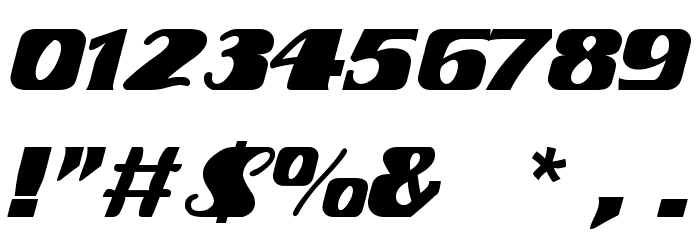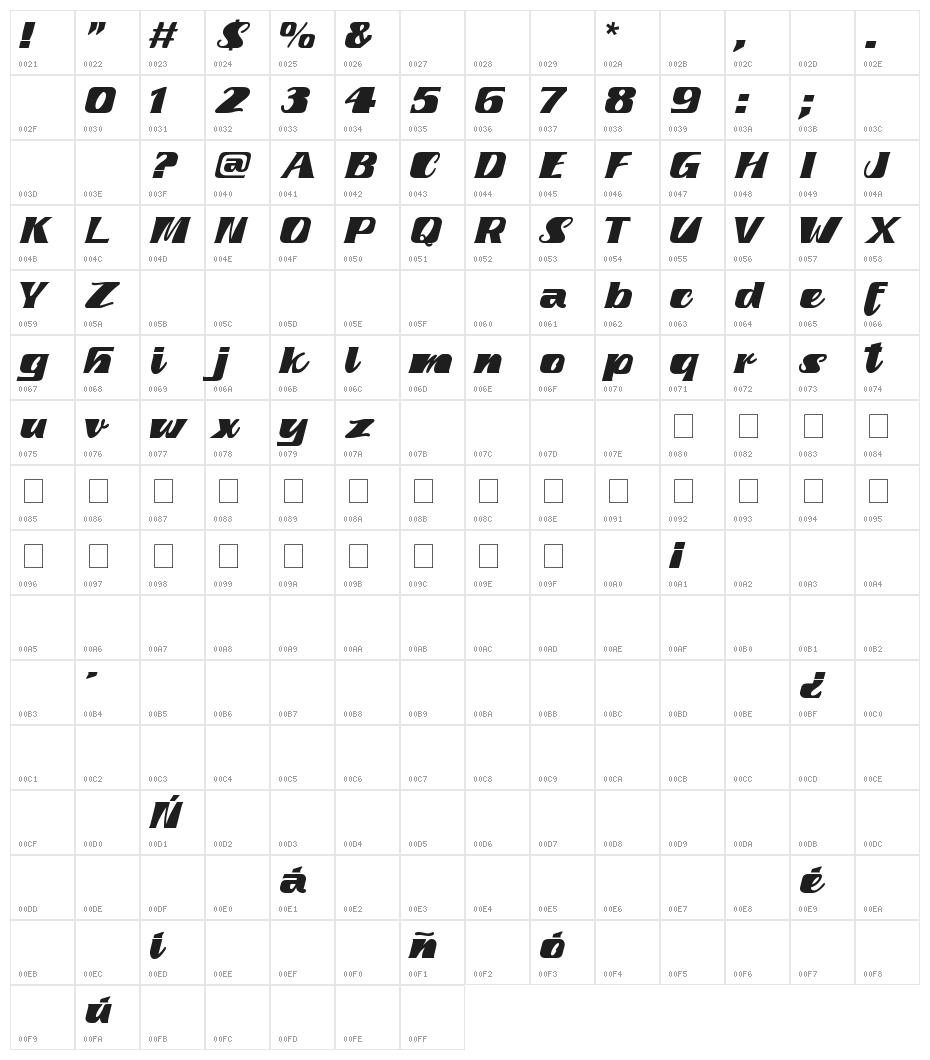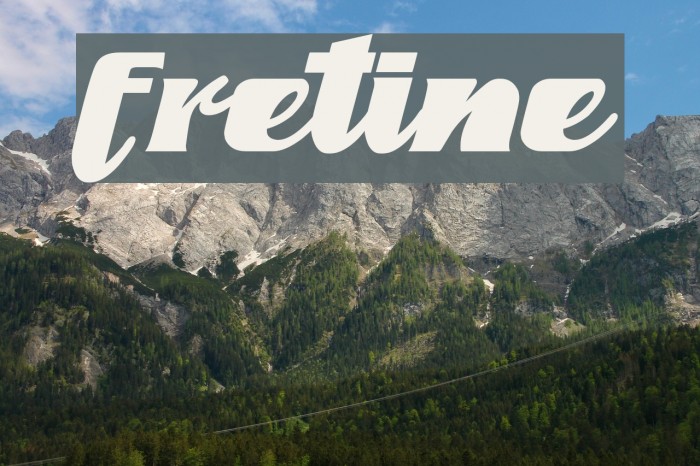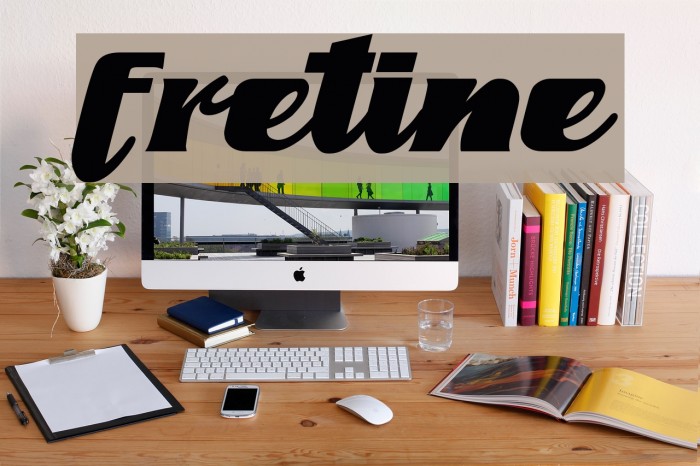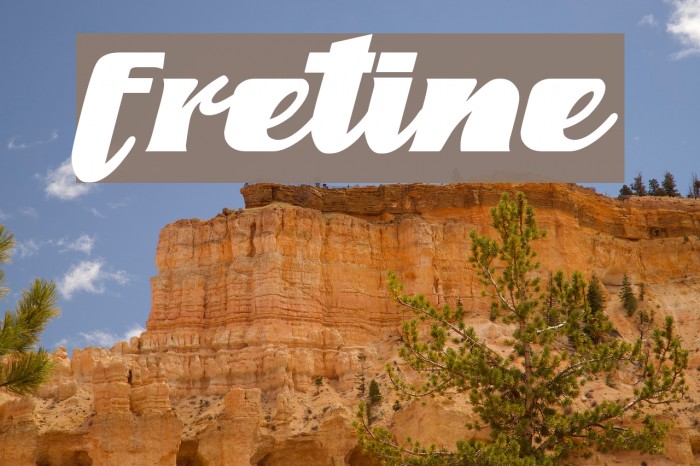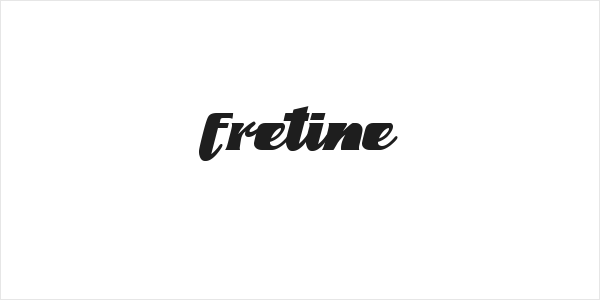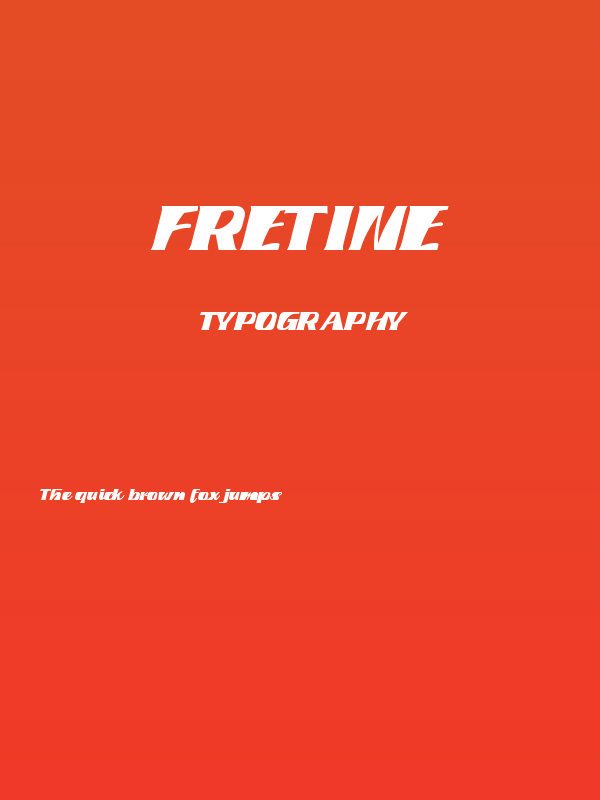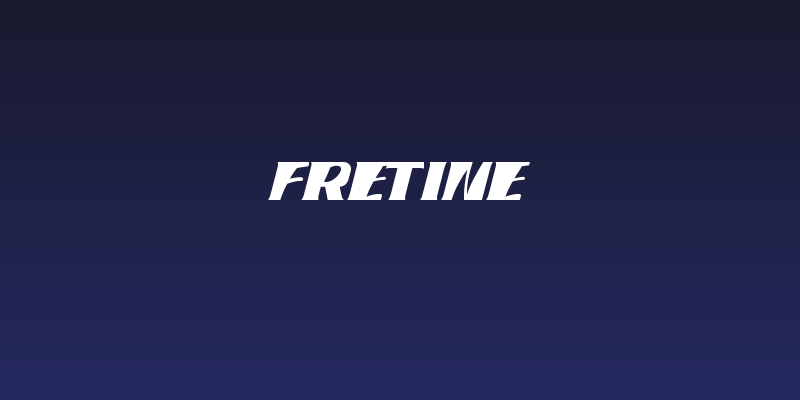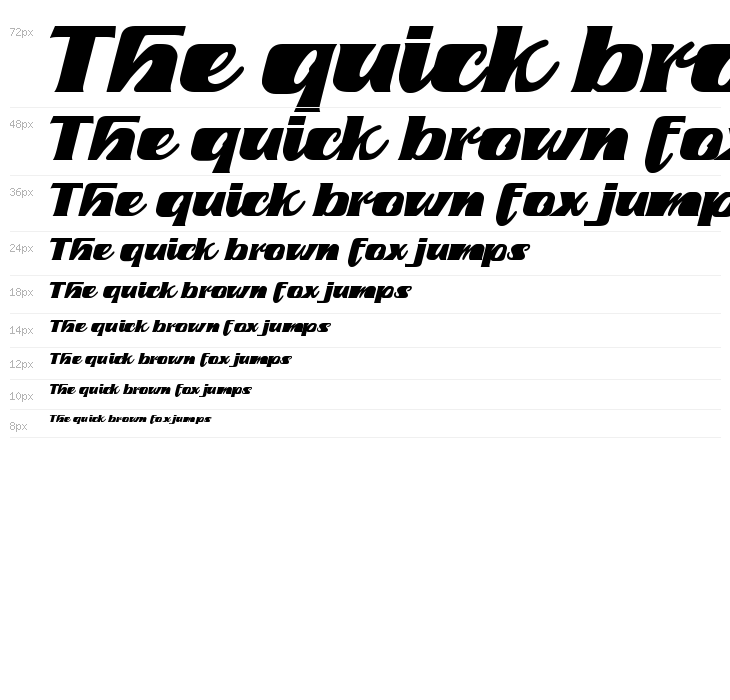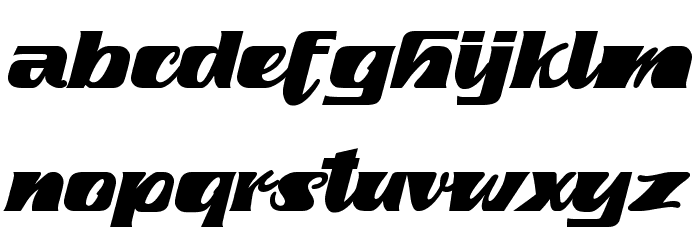
fretine Font
fretine Description
This font exhibits a bold and dynamic style with a strong emphasis on angular and sharp edges. The characters are slightly italicized, giving a sense of motion and energy. The uppercase letters are particularly striking, with a forward-leaning stance that suggests speed and modernity. The lowercase letters maintain this dynamic quality while offering a bit more curvature, especially noticeable in letters like 'g' and 'y'. The numerals are consistent with the overall style, featuring sharp angles and a bold presence. Special characters are designed to match the font's energetic and modern aesthetic, making them suitable for attention-grabbing designs.
| Proposed Projects | Ideal for sports branding, dynamic posters, modern logos, and any design requiring a bold, energetic typeface. |